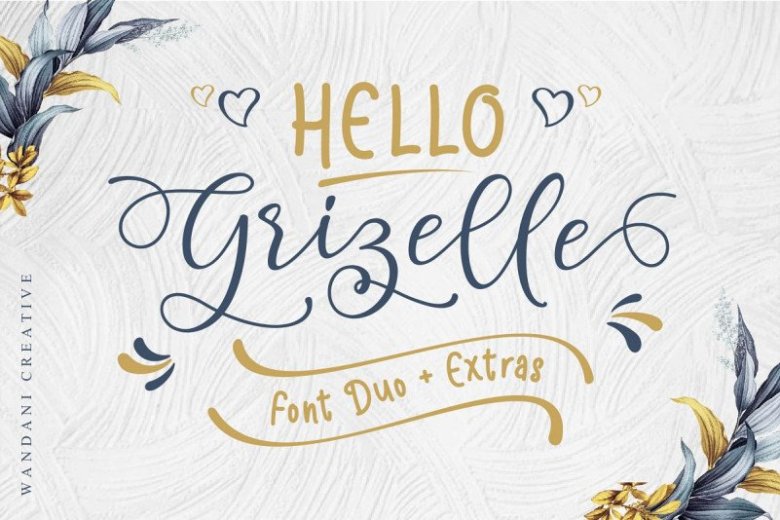
Hello Grizelle Font Duo
Hello Grizelle Font Duo is a modern calligraphy feminine font, every single letter has been carefully crafted to make your text look beautiful. It’s designed and shared by wandani.. It’s a beautiful and perfect duo of fonts, giving your project a beautiful and bold look. This download comes with two different style fonts that work in harmony with each other to create amazing typographic creations. With a modern script style this font will be perfect for many different projects ex: photography, watermark, quotes, blog header, poster, wedding, branding, logo, fashion, apparel, letter, invitation, stationery, etc